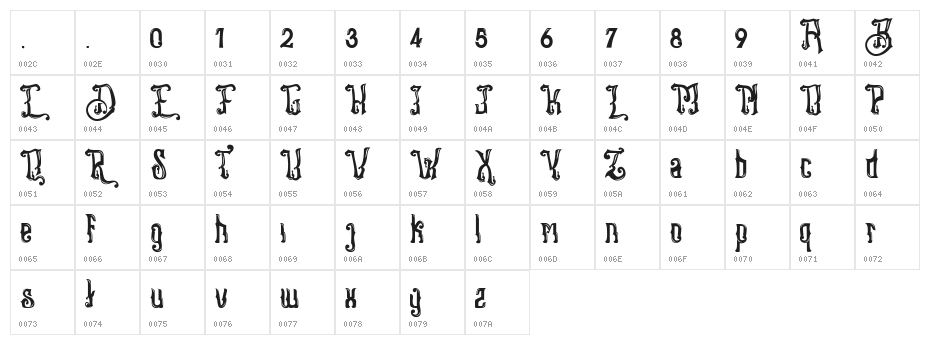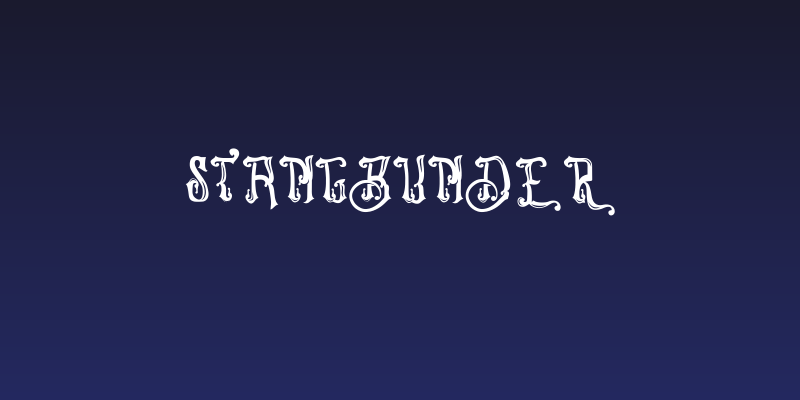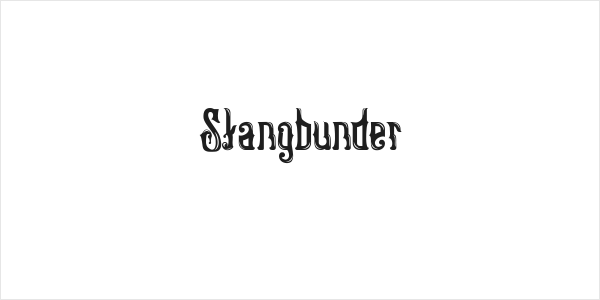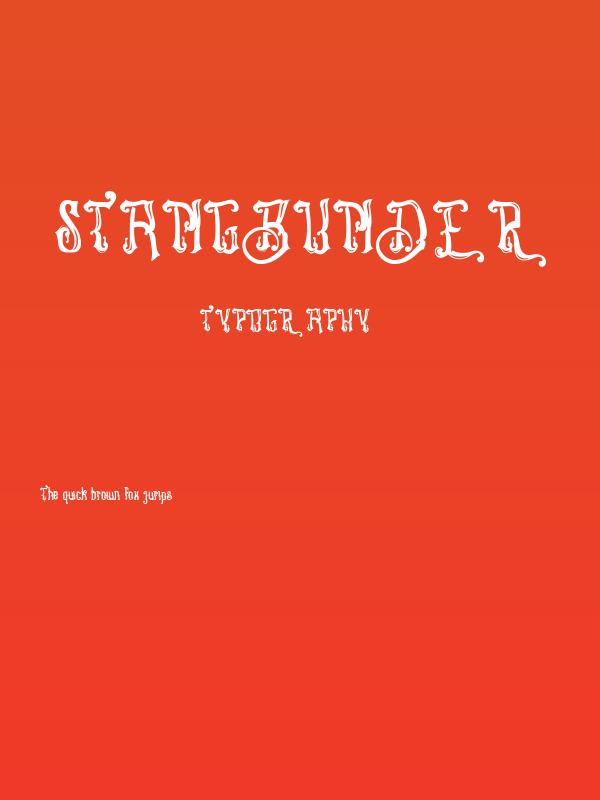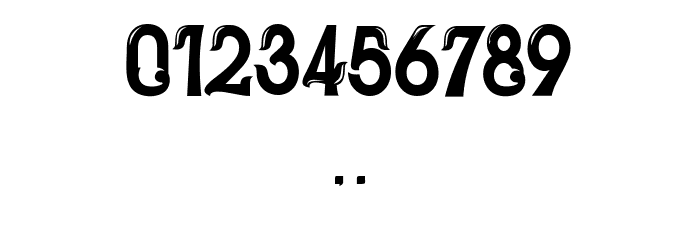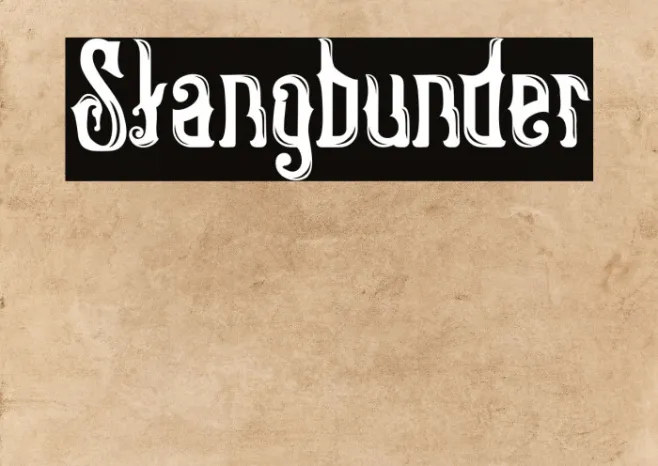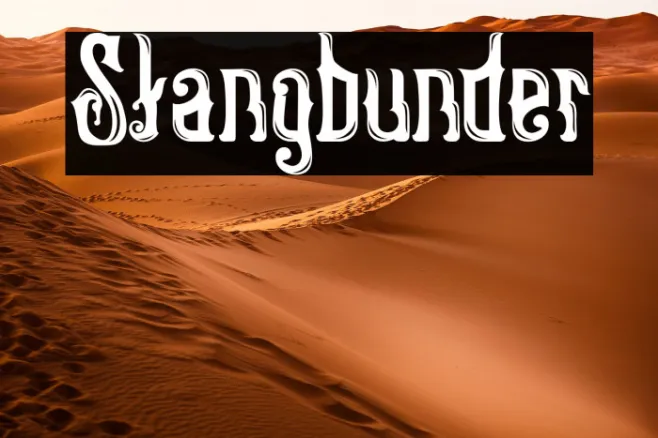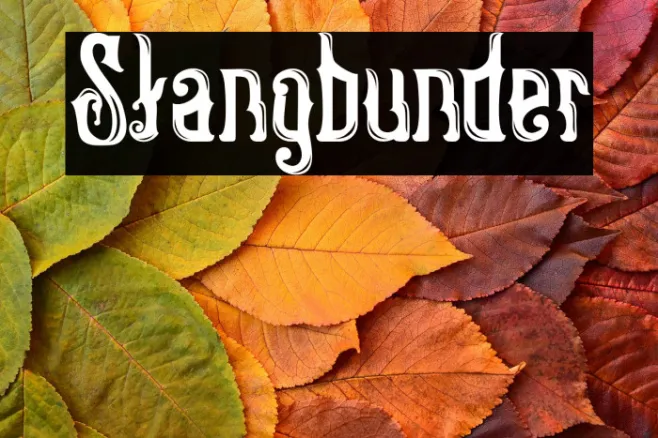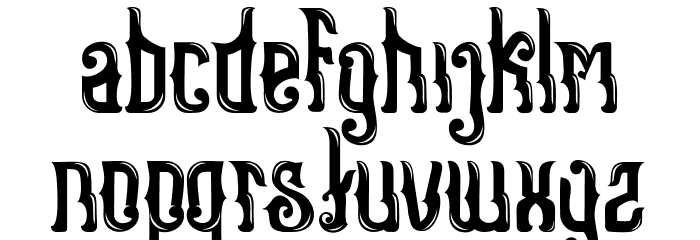
Stangbunder Font
Stangbunder Description
This font features a highly decorative and ornate style, reminiscent of vintage or gothic designs. Each character is embellished with intricate curls and flourishes, giving it a unique and artistic appearance. The uppercase letters are particularly elaborate, with extended serifs and loops that create a sense of movement and elegance. The lowercase letters maintain a similar decorative style, though slightly more restrained, ensuring readability. The numerals and special characters are consistent with the overall design, featuring the same ornate details. This font's distinctiveness makes it ideal for projects that require a touch of sophistication and historical flair.